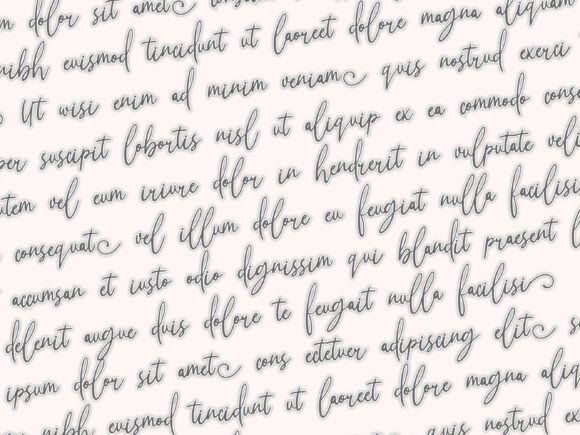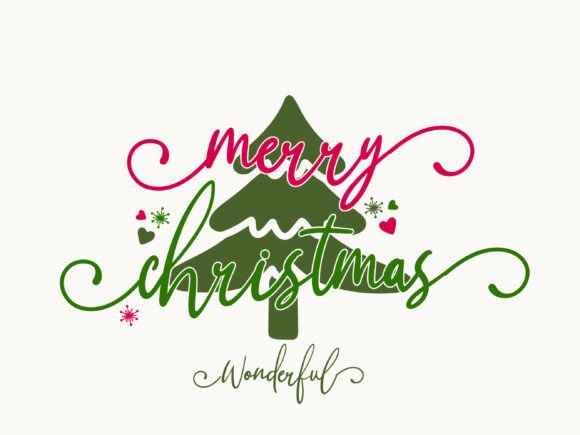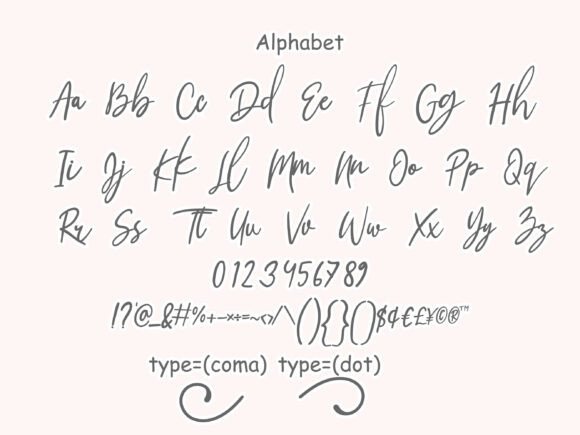
Introduction to Lemon Cream Font
Have you ever been stuck on a creative project, desperately searching for the perfect font to bring your vision to life? I know I have. There’s nothing quite like the thrill of finding that one special font that makes your design pop, and for me, that font is the Lemon Cream Font. This charming, handwritten script font is a game-changer for designers looking to add a touch of elegance and warmth to their work.
With its smooth connections, delicate swashes, and gentle curves, the Lemon Cream Font is the perfect choice for any project that requires a feeling of handmade quality and personal warmth. Whether you’re designing beautiful wedding invitations, heartfelt greeting cards, or engaging social media graphics, this font is sure to make your design stand out.
As a valuable design resource, the Lemon Cream Font offers an impressive range of stylistic alternates, swashes, and ligatures to perfectly customize the flow and ending strokes of your words. And the best part? It’s a high-quality font that’s free to download, making it an accessible design resource for creatives of all levels.
Key Features of Lemon Cream Font
- Unique Hand-Drawn Design: The Lemon Cream Font boasts a distinctive hand-drawn style, perfect for creative projects that require a personal touch.
- Perfect for Illustrations and Graphics: The Lemon Cream Font’s unique design and transparent background make it a great choice for illustrations, graphics, and other design elements.
Honest Review: Lemon Cream Font
I recently stumbled upon the Lemon Cream Font and was excited to give it a try for my latest creative project. As a designer, I’m always on the lookout for high-quality fonts that can elevate my work and add a personal touch.
What works well with the Lemon Cream Font is its playful and vintage vibe, making it perfect for illustrations, watercolor designs, or any project that requires a touch of whimsy. The font is free to download, which is a major plus for designers on a budget. Additionally, the transparent background makes it easy to layer with other design elements.
- ✨ Playful and vintage vibe that adds a personal touch
However, I did notice that the font can be a bit difficult to read at smaller sizes, and the character set is somewhat limited. This might be a concern for designers who need to use the font for body text or extensive text-based content.
Overall, I’d give the Lemon Cream Font 4 out of 5 stars. While it’s not perfect, it’s a great addition to any designer’s toolkit, especially for creative projects that require a touch of personality.
⚠️ Limitations: Difficult to read at smaller sizes, limited character set
The Lemon Cream Font is perfect for a variety of creative projects, including wedding invitations, birthday cards, and social media graphics. It’s also great for designing menus, posters, and other marketing materials. With its high-quality design and transparent background, this font is sure to add a touch of sophistication to any project.